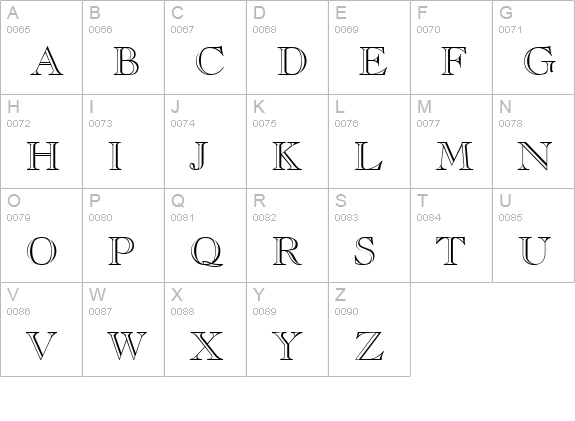
Casque OpenFace is a modern and sleek font that exudes elegance and sophistication. With its clean lines and stylish curves, this font is perfect for a wide range of design projects, from branding to editorial design. The open and airy feel of Casque OpenFace gives a sense of freedom and creativity to any design it is used in. What sets Casque OpenFace apart is that it is not only visually stunning but also available for free download at FontsMarket.com. This makes it a valuable resource for designers looking to add a touch of sophistication to their projects without breaking the bank. Whether you're designing a logo, a poster, or a website, Casque OpenFace is sure to make a bold statement and leave a lasting impression on your audience.